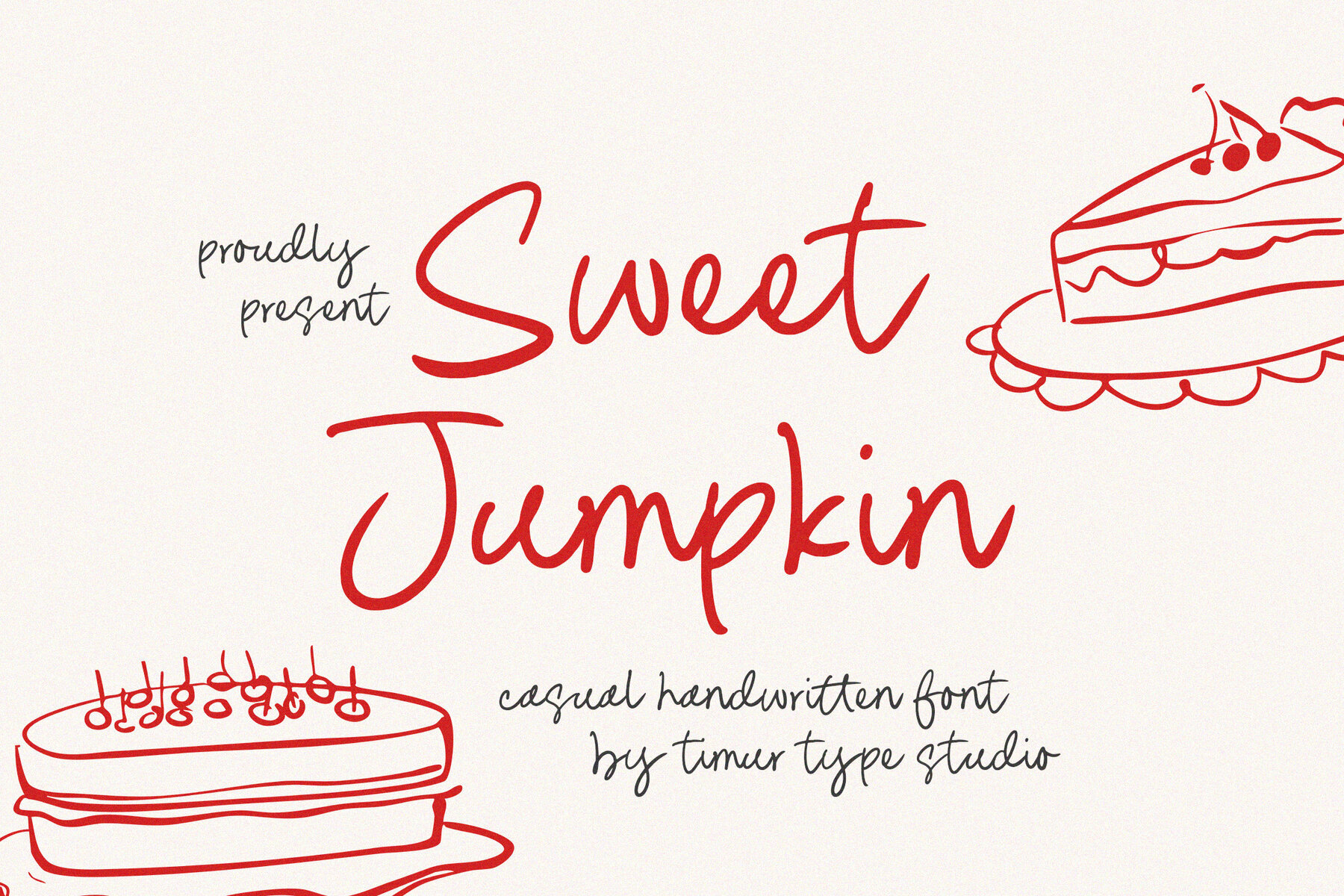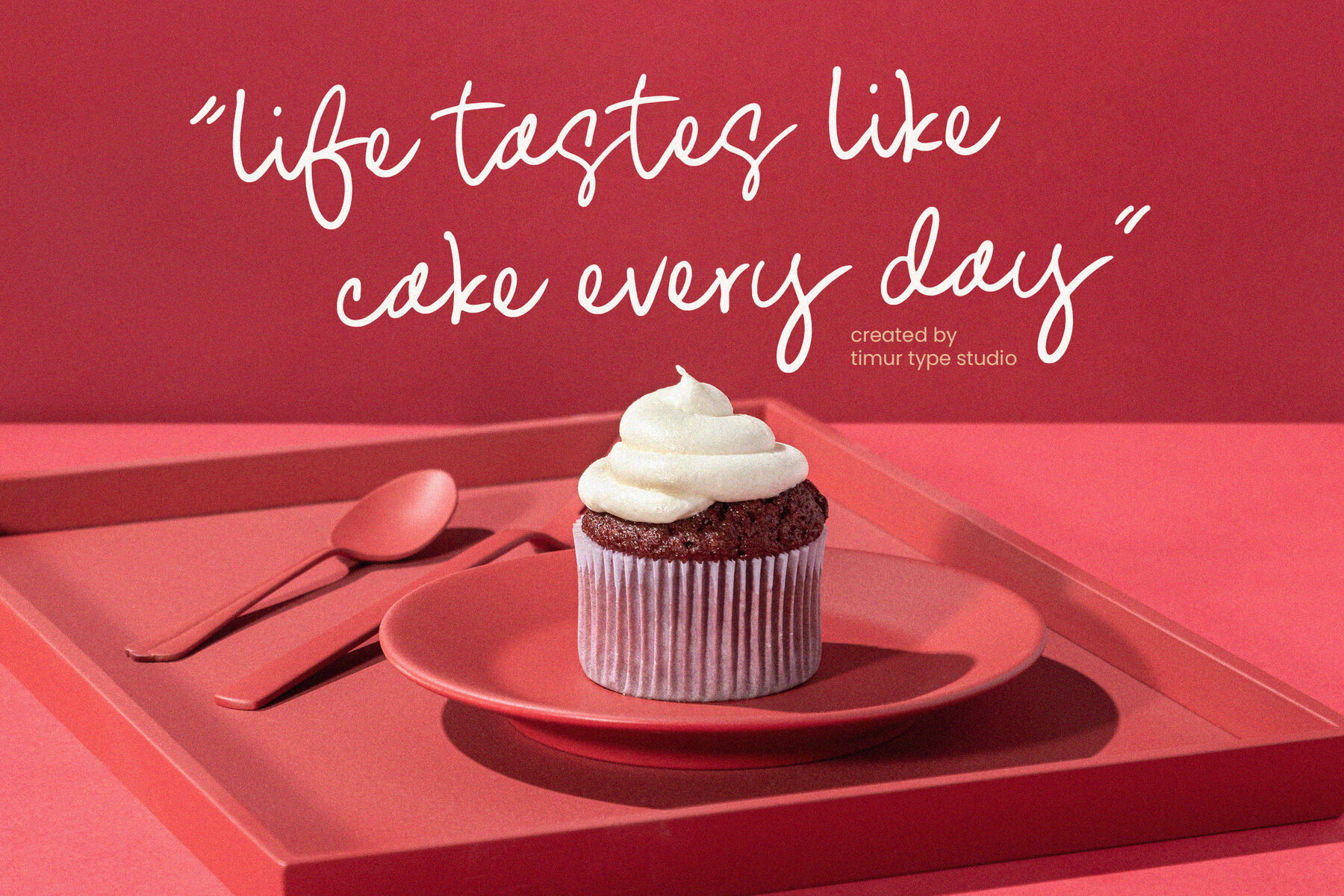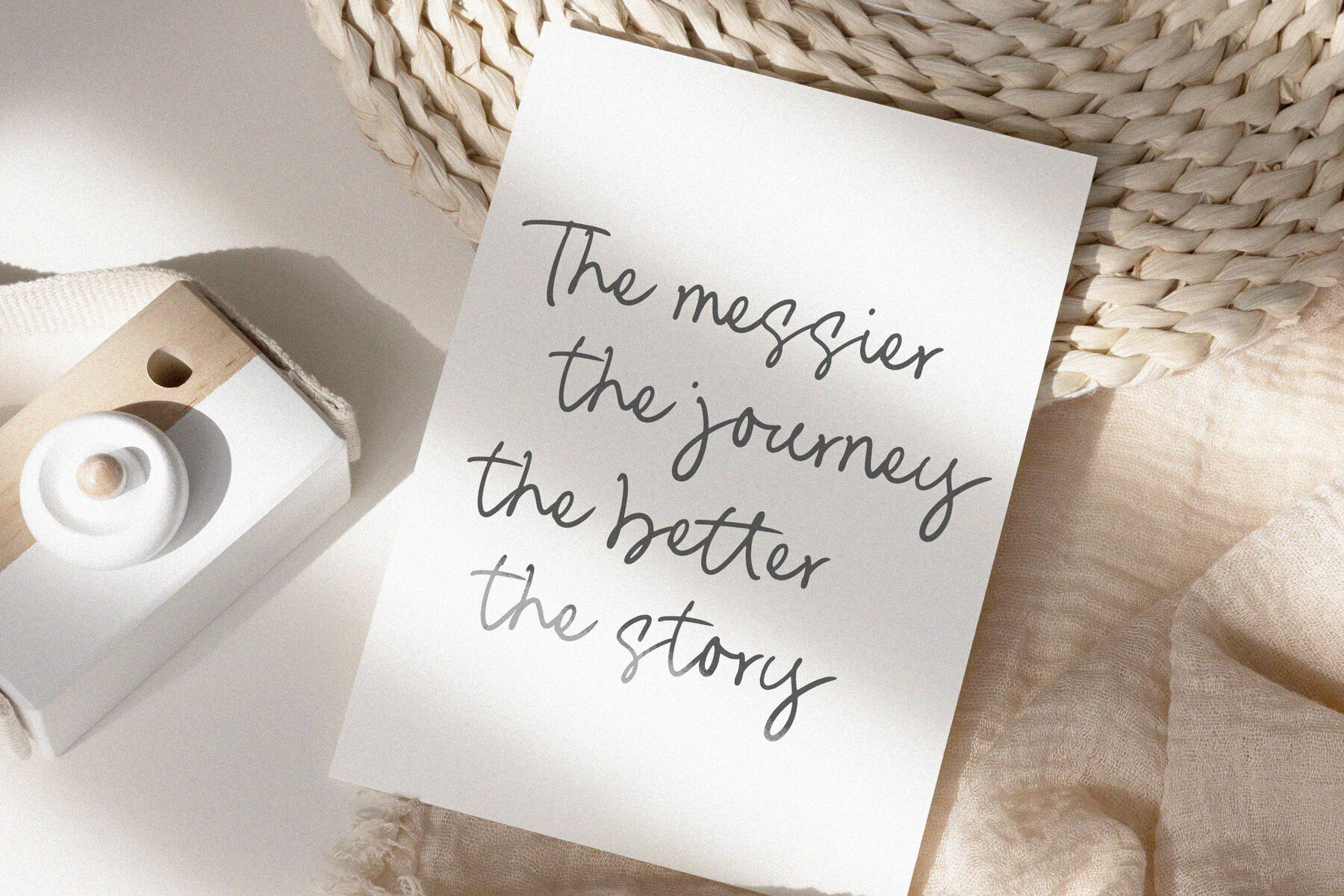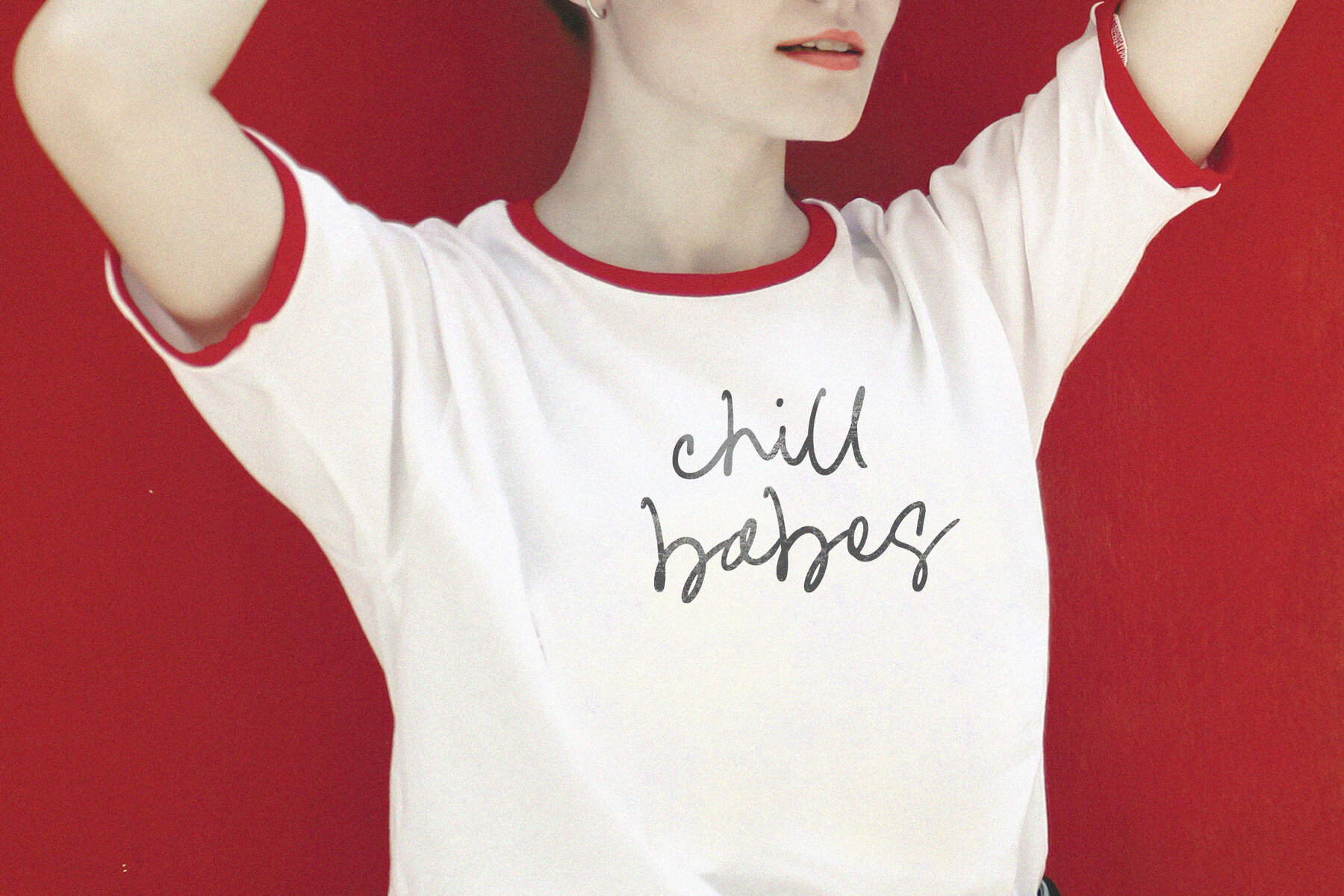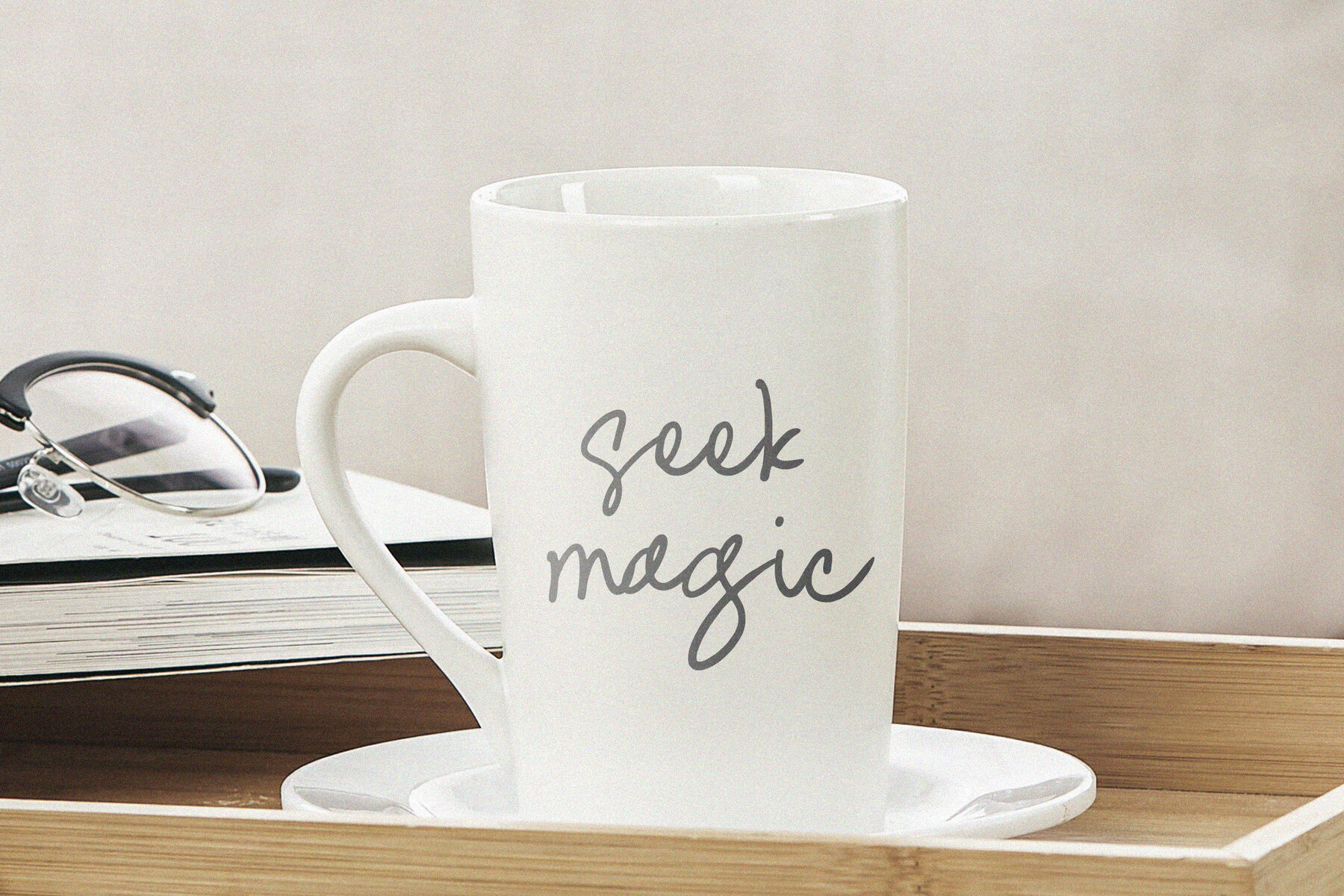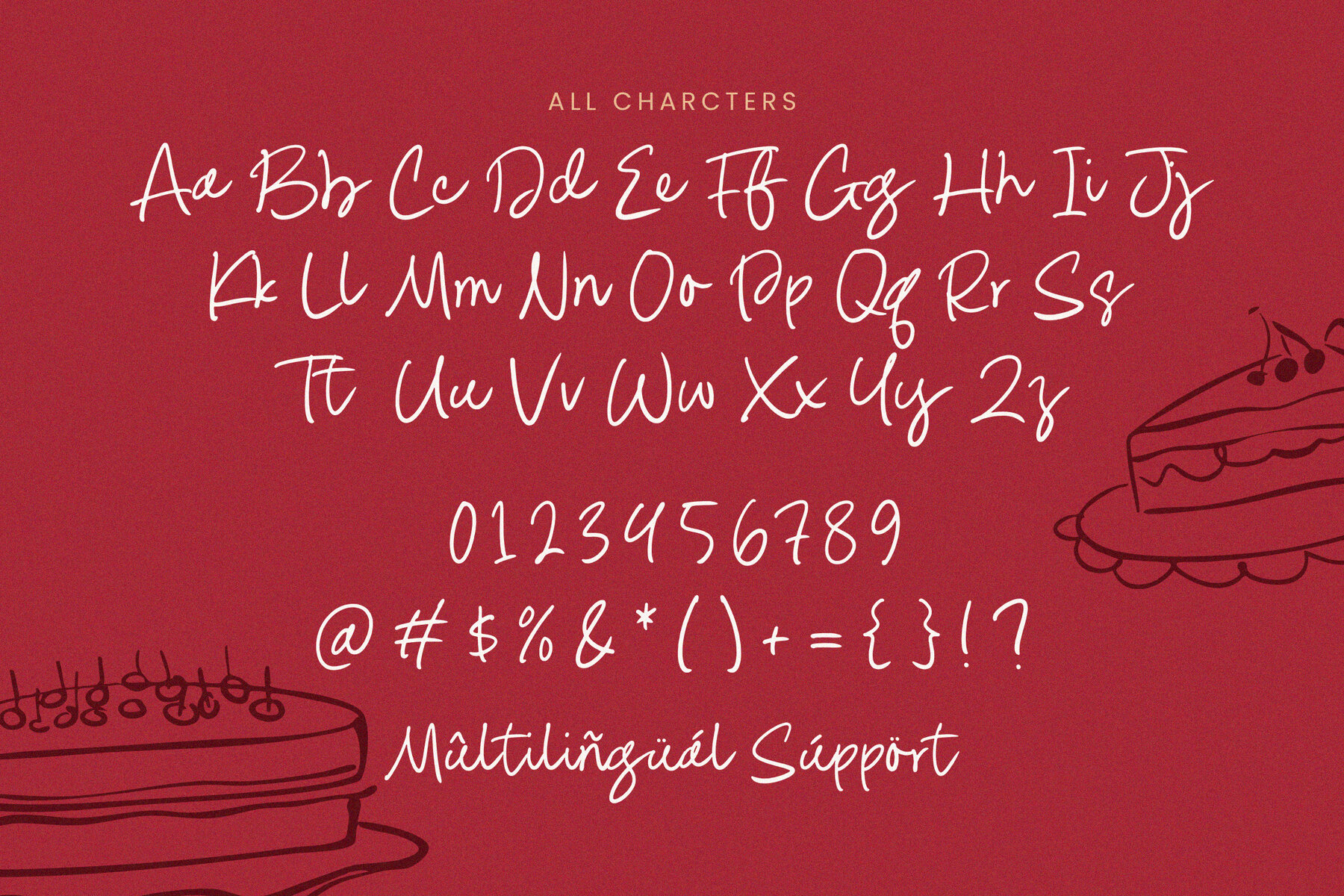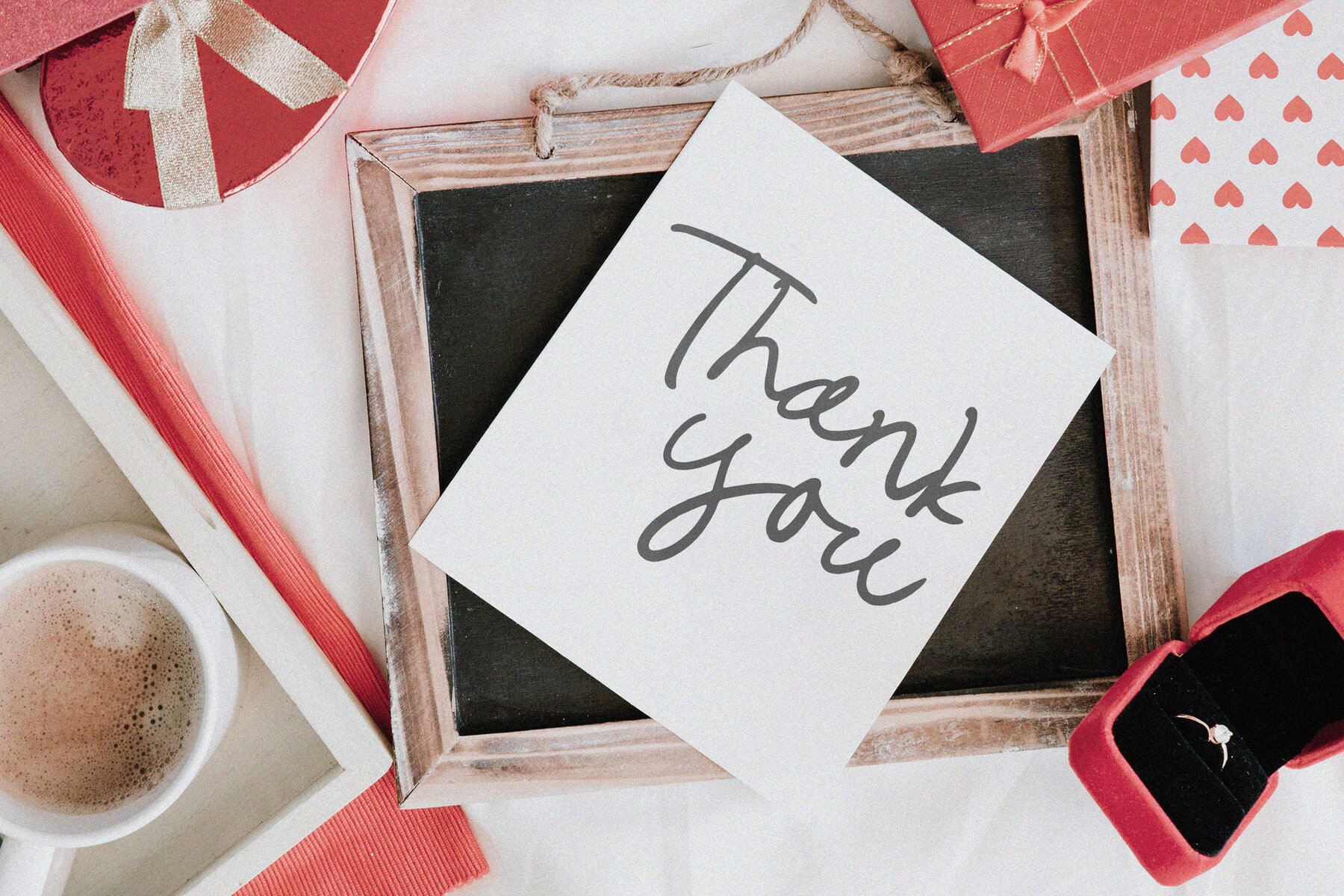
Sweet Jumpkin Font
Sweet Jumpkin
Sweet Jumpkin is a delightful handwritten font that exudes charm and warmth. Its smooth curves and slightly bouncy baseline imbue each design with a whimsical touch, making it perfect for diverse applications. Whether you're crafting greeting cards, enhancing social media graphics, or adding character to branding projects, Sweet Jumpkin is an ideal choice.Sweet Jumpkin: Playful Handwritten Charm